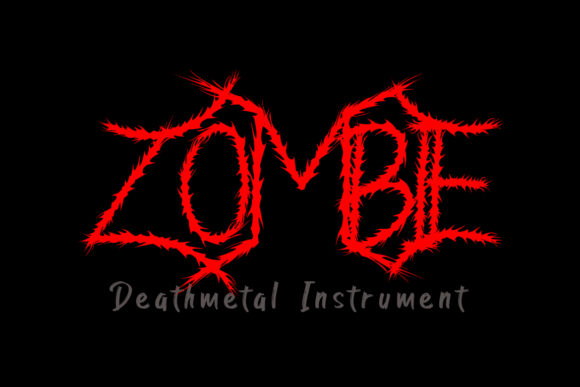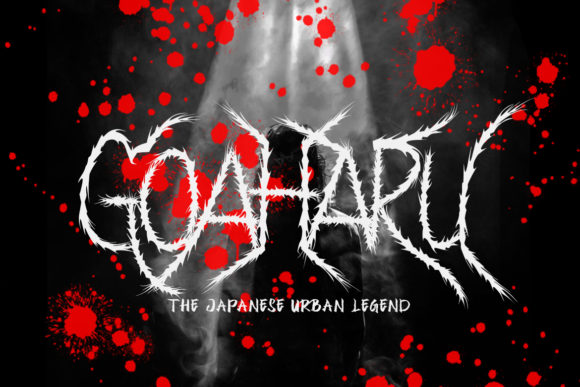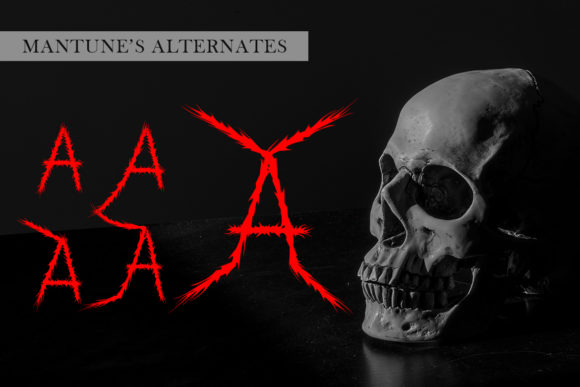
Introduction to Mantune Font
Imagine you’re in the middle of a creative project, brainstorming ideas and trying to find the perfect visual representation to bring your concept to life. You’re scrolling through your design resources, searching for that one font that will make your project stand out. And then, you stumble upon it – the Mantune Font. This display font is specifically designed for Death Metal fans, but its authentic look and feel make it perfect for any project that requires a personalized touch.
The Mantune Font is a high-quality design resource that can elevate your creative project to the next level. With its unique style and transparent background, you can easily incorporate it into your design without any distractions. Whether you’re working on a logo, poster, or even a website, the Mantune Font is a valuable addition to your design toolkit.
Mantune Font Key Features
- Designed with a unique aesthetic, perfect for adding a touch of elegance to your work
Honest Review: Mantune Font
I recently had the chance to work with the Mantune Font and I must say, I’m quite impressed. As a designer, I’m always on the lookout for high-quality design resources that can elevate my creative projects.
- ✨ High-quality glyphs: The Mantune Font boasts a wide range of glyphs that are both stylish and legible. It’s perfect for projects that require a touch of elegance.
- ✨ Transparent background: This feature allows for seamless integration with any background image or color, giving me the freedom to get creative with my designs.
While the Mantune Font excels in many areas, there are a few limitations to consider. ⚠️ Font size limitations: The font may not be suitable for large-scale text or headlines, so be sure to use it judiciously.
Overall, I’m thoroughly enjoying working with the Mantune Font. Its unique style and high-quality design make it an excellent choice for designers looking to add some flair to their creative projects. If you’re in the market for a reliable and stylish font, the Mantune Font is definitely worth checking out.
Mantune Font
The Mantune Font is commonly used in creative projects such as logo design, branding, and typography. It is also used in presentations, documents, and social media graphics. With its high quality and transparent background, the Mantune Font is a popular design resource among designers and non-designers alike.
To get the most out of the Mantune Font, use it in combination with other high quality design resources. Experiment with different font sizes, colors, and styles to create a unique and creative look. Use the Mantune Font in your design projects to add a touch of elegance and sophistication.